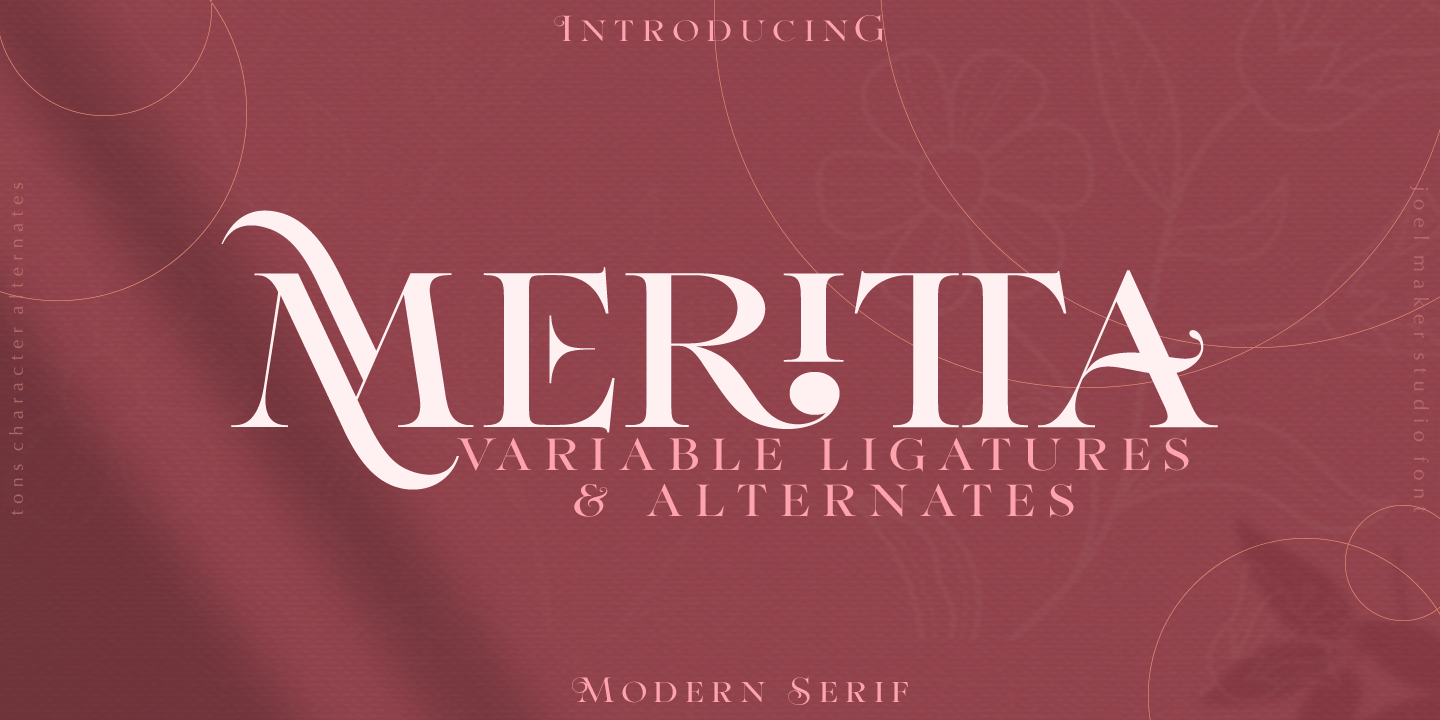
Meritta Serif Font is perfect for luxury brand logos, high-end fashion magazines, elegant wedding invitations, premium wine labels, sophisticated book covers, upscale restaurant menus, corporate annual reports, and refined jewelry packaging.
Meritta Serif Font is exciting because it masterfully balances classical elegance with contemporary sophistication, featuring refined serifs and graceful letterforms that exude timeless luxury and professional authority. The typeface commands attention while maintaining an air of understated refinement that speaks to discerning audiences.
Meritta Serif Font family includes Light, Regular, Medium, Bold, and Black weights, along with matching italic variants, providing designers with comprehensive typographic flexibility for creating sophisticated visual hierarchies in premium design projects.
Whether you're crafting materials for a luxury boutique, designing an elegant corporate identity, or developing high-end editorial layouts, Meritta Serif Font Free Download offers unparalleled sophistication and versatility. This distinguished typeface combines traditional serif craftsmanship with modern precision, ensuring exceptional readability across both print and digital applications. The font's carefully balanced proportions and refined details make it equally stunning in large display sizes and comfortable body text settings. Design professionals consistently choose Meritta Serif Font when projects demand that perfect combination of classic elegance and contemporary relevance, making it an essential asset for luxury branding, editorial design, and any application where sophisticated typography can elevate the entire visual experience and communicate premium quality values.